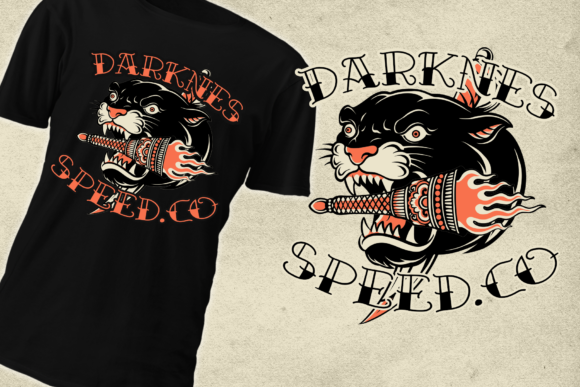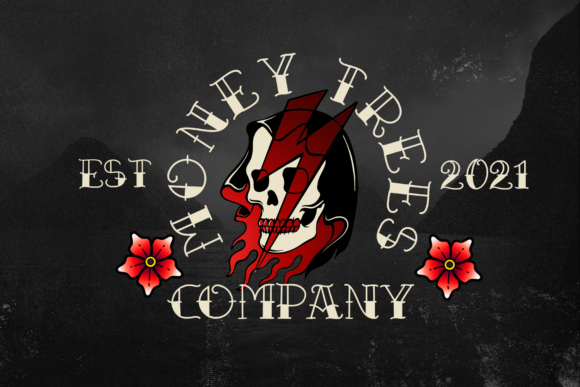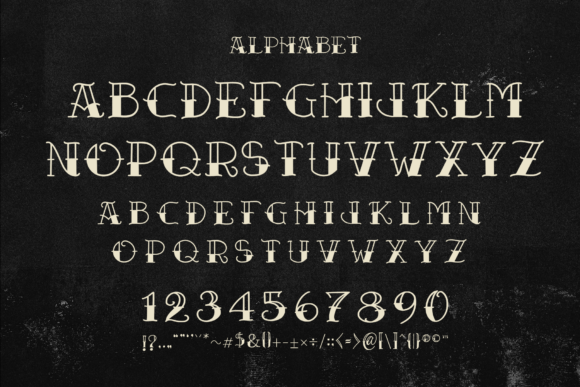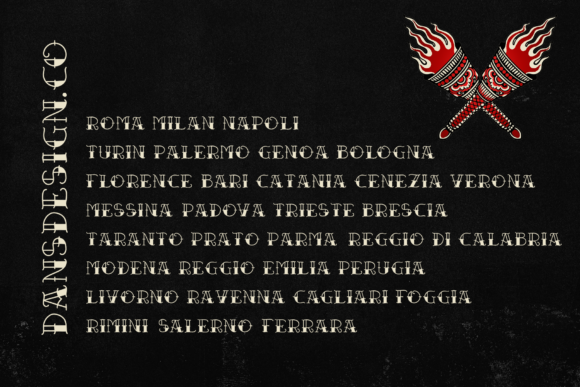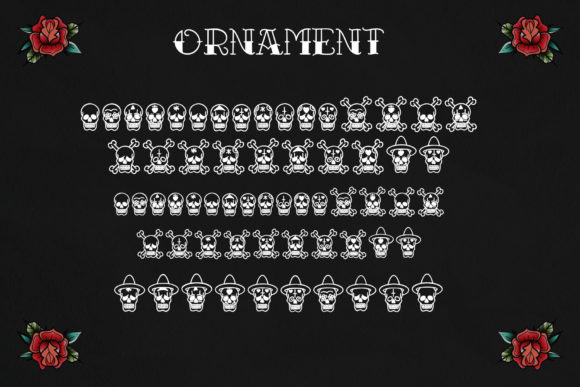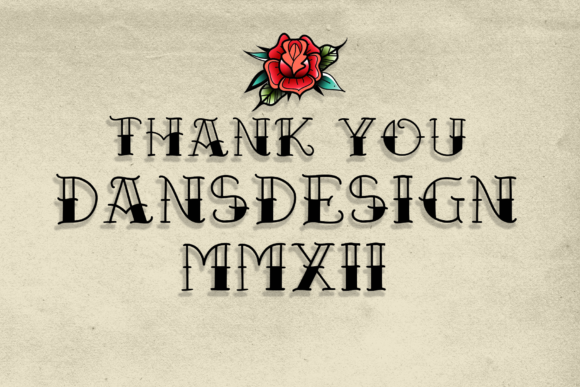
Introduction to Pinders Font
Have you ever been working on a design project, and suddenly, the perfect font pops into your mind? For designers, this moment is pure magic. It’s the spark that ignites a creative fire, guiding us through the rest of the project. For me, that spark came in the form of the eerie yet captivating Pinders Font.
This duo font is a game-changer for designers who crave a touch of darkness and mystery in their designs. Pinders Font is a masterclass in design, offering a seamless blend of display and dingbats. Its high-quality design makes it an invaluable resource for designers seeking to elevate their creative projects. With a transparent background, the possibilities are endless, and the only limit is your imagination.
- Designed to provide a unique and distinctive look for your design projects.
Honest Review: Pinders Font
I recently had the chance to work with the Pinders Font, a free design resource that’s gaining popularity among designers. As someone who’s always on the lookout for high-quality fonts for my creative projects, I was excited to dive in and see what it had to offer.
Here are some of the things that worked well for me:
- ✨ High-quality design: The Pinders Font is incredibly detailed and looks great on a variety of backgrounds, including transparent backgrounds.
- ✨ Versatility: I found it easy to use the font in a range of creative projects, from digital design to print materials.
- ⚠️ Limited character set: Unfortunately, the Pinders Font only includes a limited character set, which may not be suitable for projects that require a wide range of characters.
- ⚠️ Not ideal for small text: While the font looks great at larger sizes, it can be difficult to read at smaller sizes, making it less suitable for body text or other small-scale applications.
Overall, I was impressed with the Pinders Font, but I would caution designers to consider its limitations before using it in their projects. With a little creative problem-solving, it can be a great addition to any design resource library.
Pinders Font is a versatile and high-quality design resource perfect for creative projects. With its sleek and modern aesthetic, it’s ideal for a wide range of applications, from digital graphics to print materials.